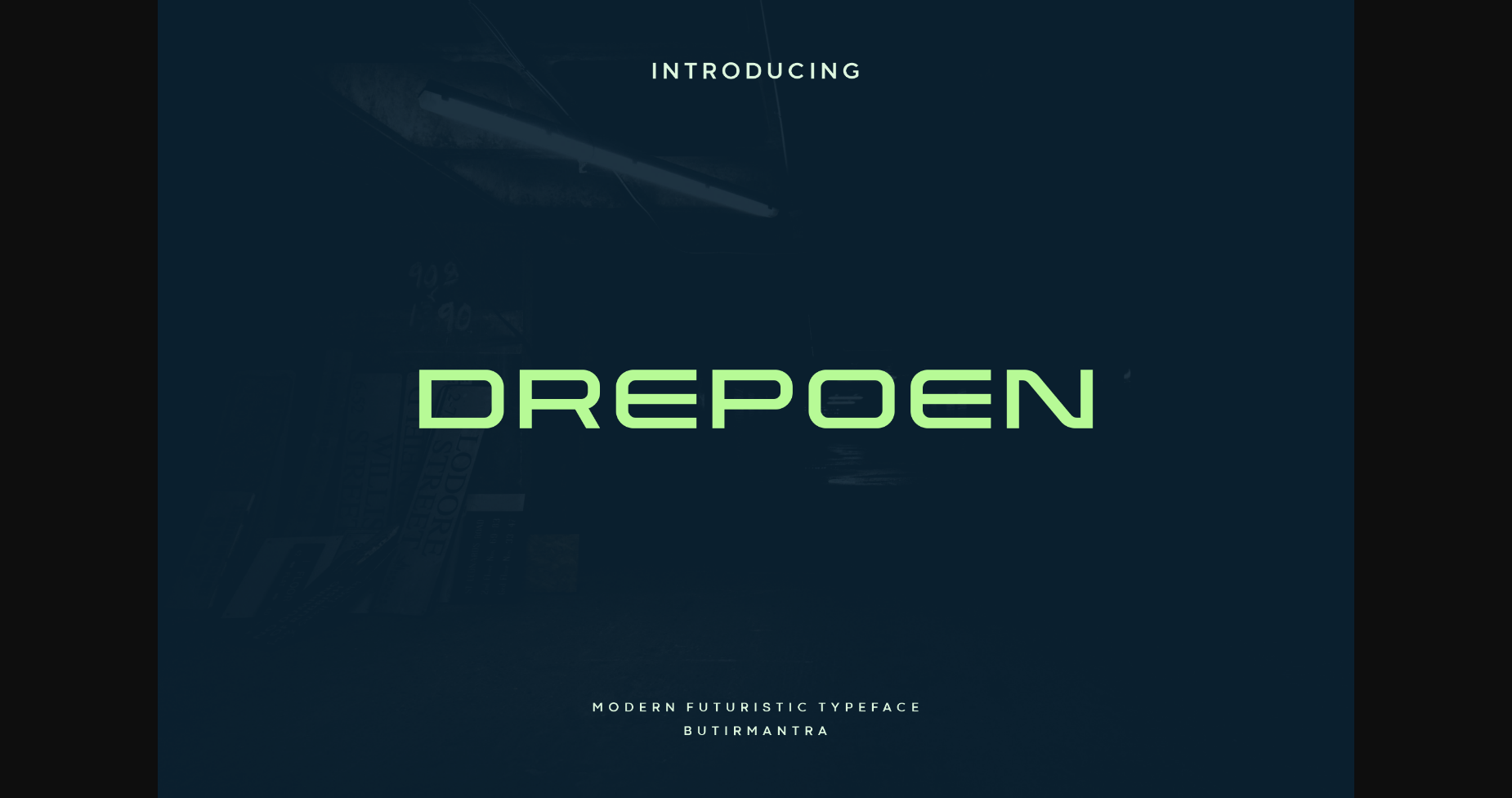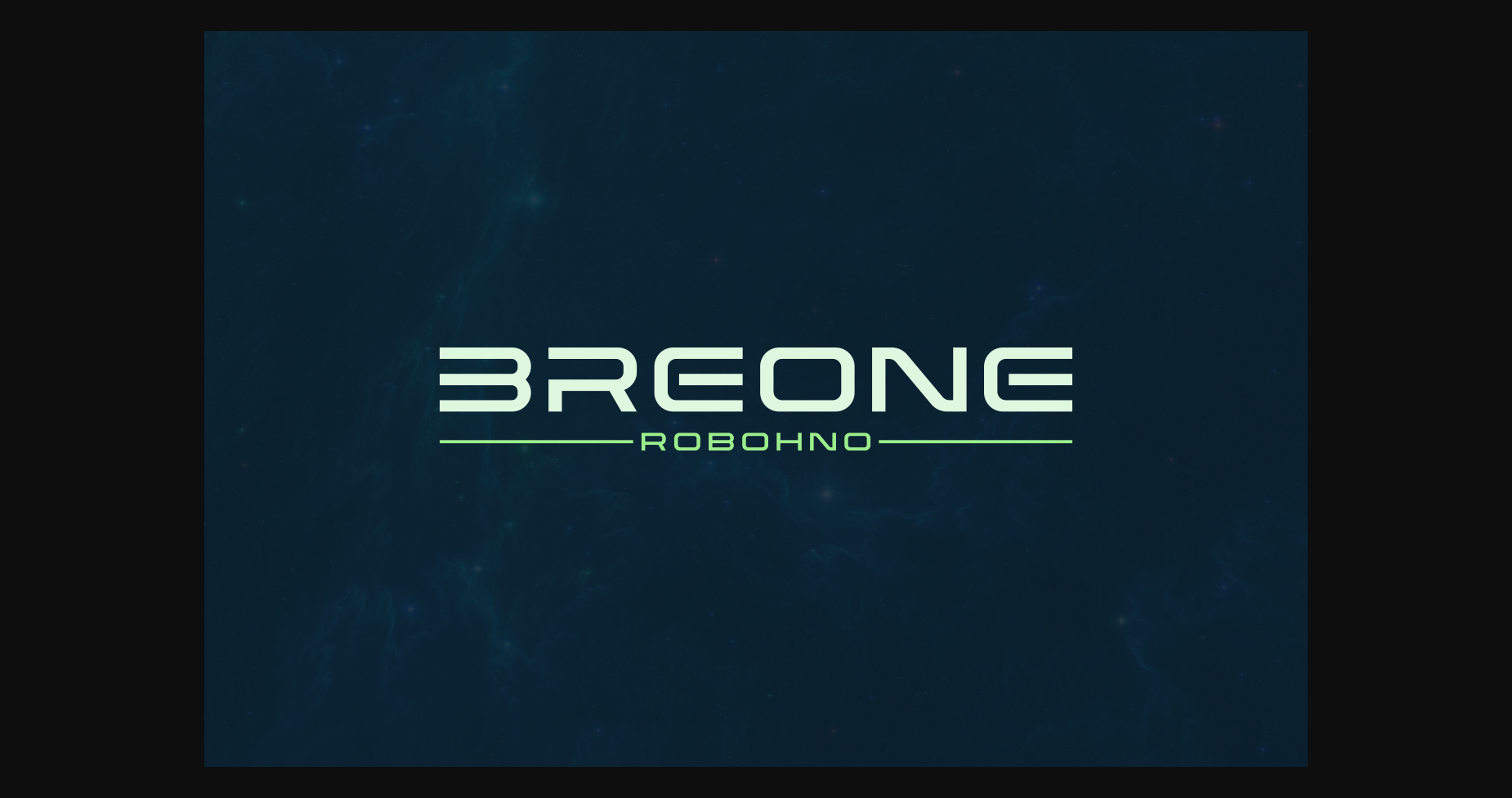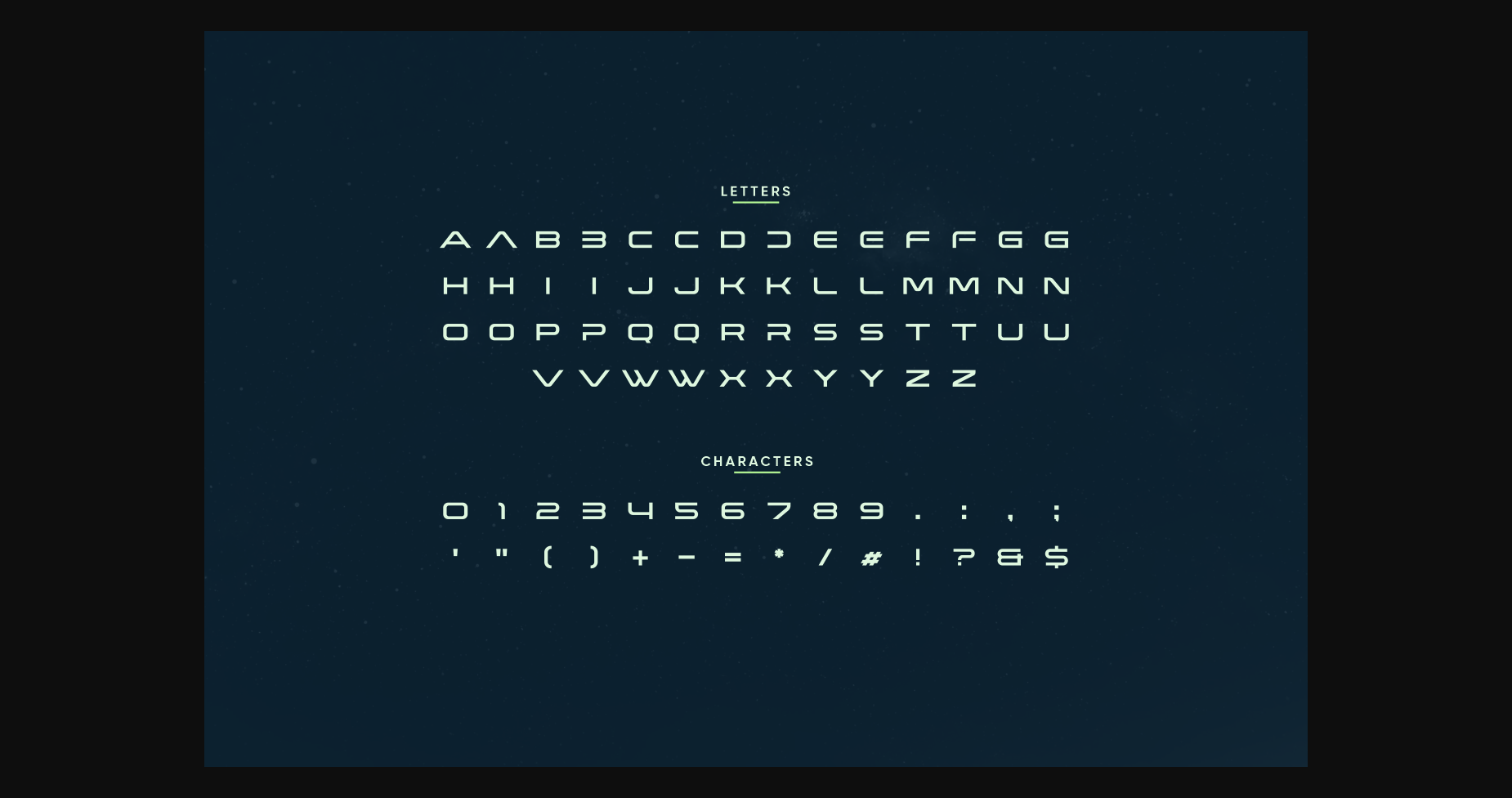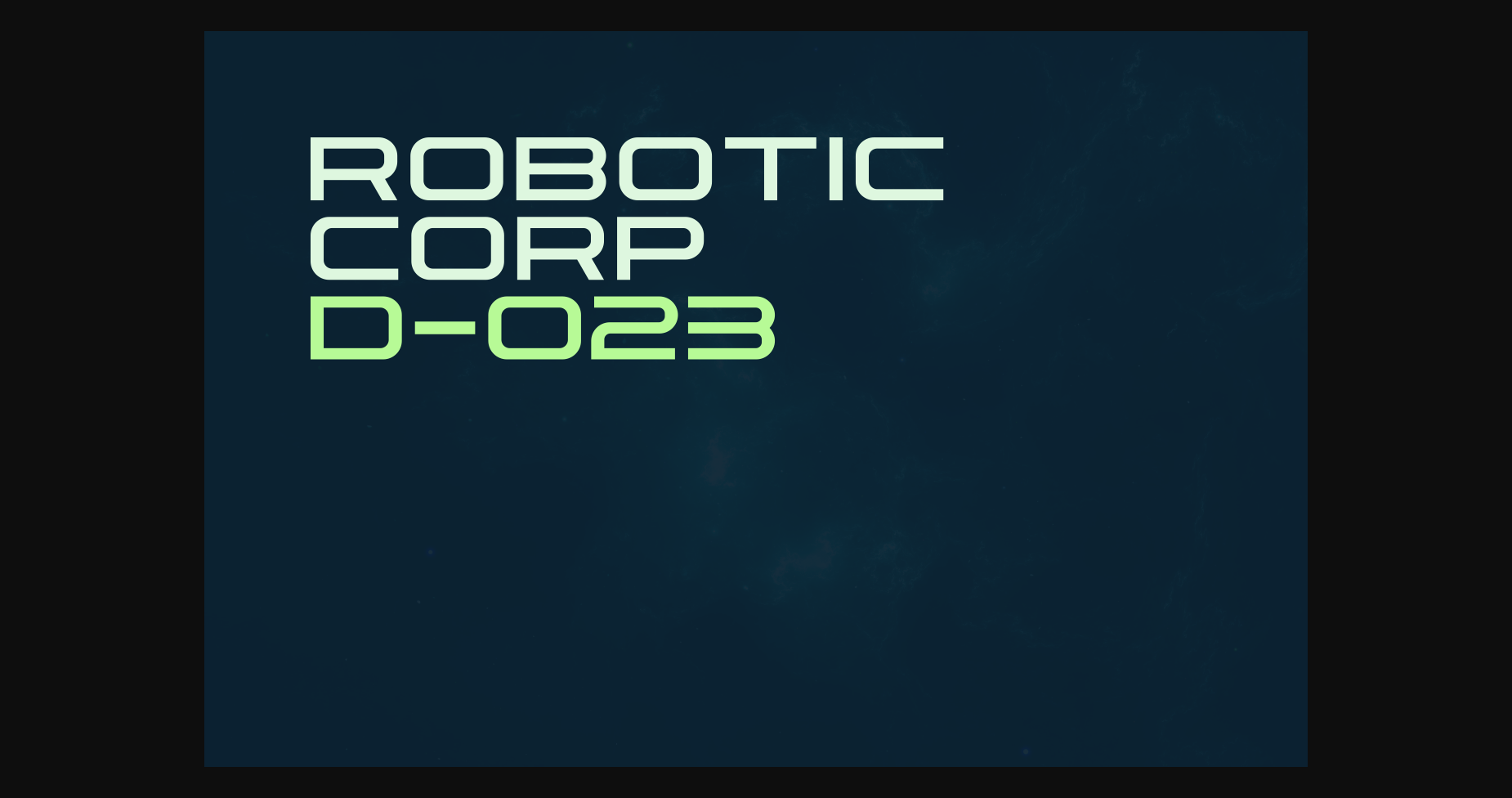
Drepoen is a modern and cool sans-serif font. Masterfully designed to become a true favorite, this font has the potential to bring each of your creative ideas to the highest level!